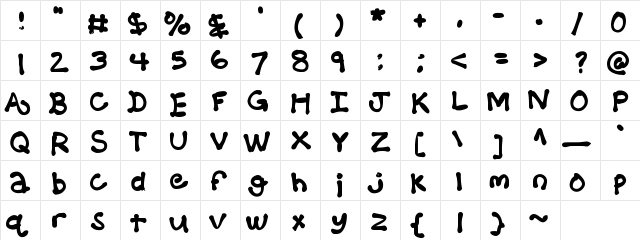
KBBalloonAnimal Medium
Design Context for KBBalloonAnimal Typeface
KBBalloonAnimal is a composed and adaptable typeface that performs quietly and consistently across a wide range of design contexts.